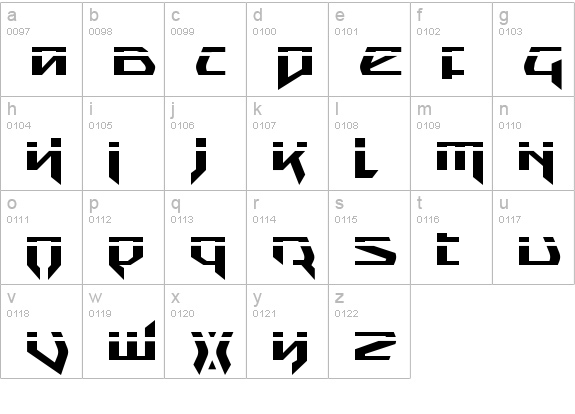
The Snubfighter Phaser font is a sleek and modern typeface that exudes a futuristic and sci-fi vibe. With its sharp edges and clean lines, this font is perfect for creating eye-catching designs for various projects. Whether you're working on a poster, logo, or website, Snubfighter Phaser will add a touch of sophistication to your work. What's even better is that the Snubfighter Phaser font is available for free download at FontsMarket.com. You can easily access this unique font and use it in your creative endeavors without any cost. Don't miss out on the opportunity to elevate your designs with the Snubfighter Phaser font, so head over to FontsMarket.com today and start creating stunning visuals with this amazing typeface.